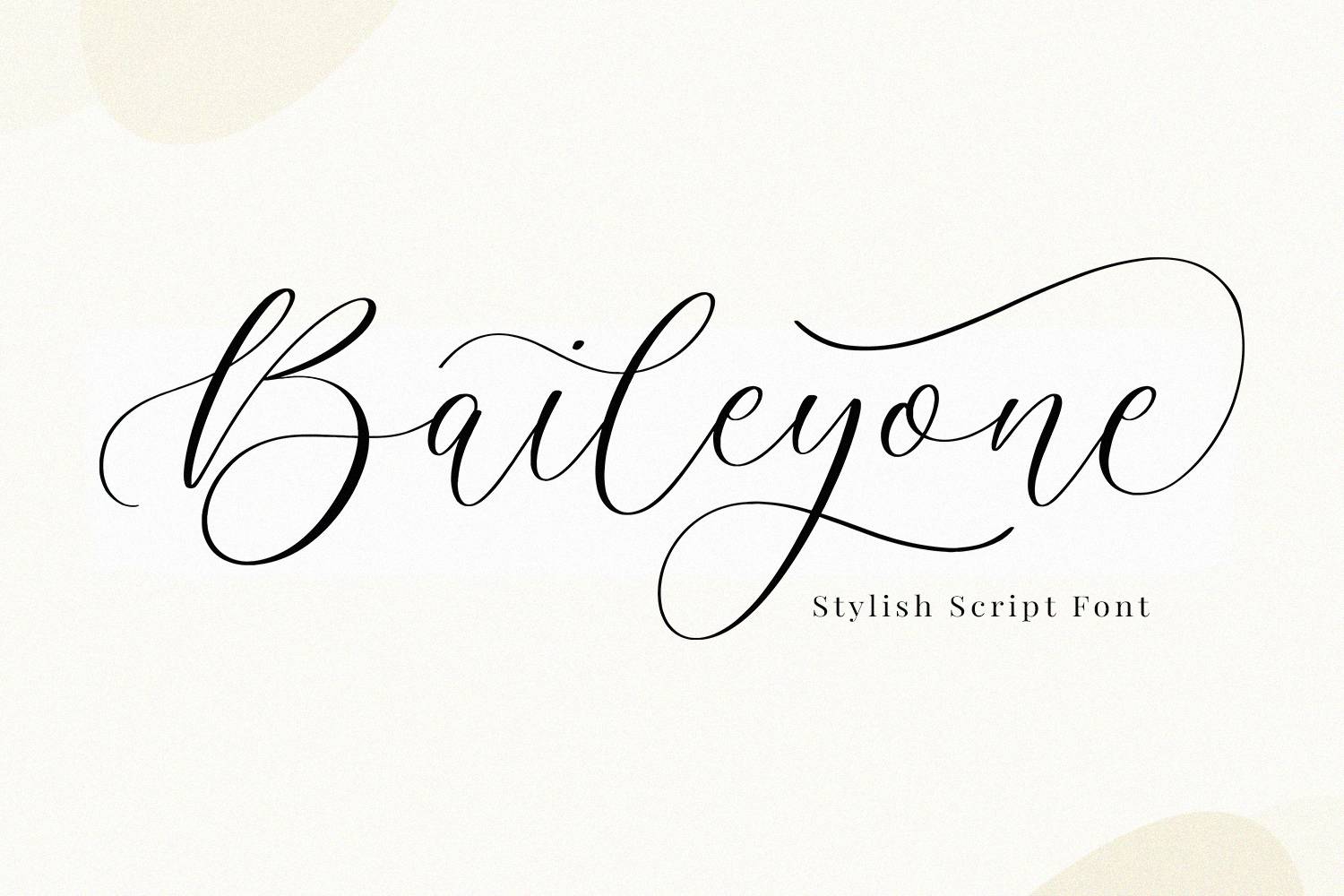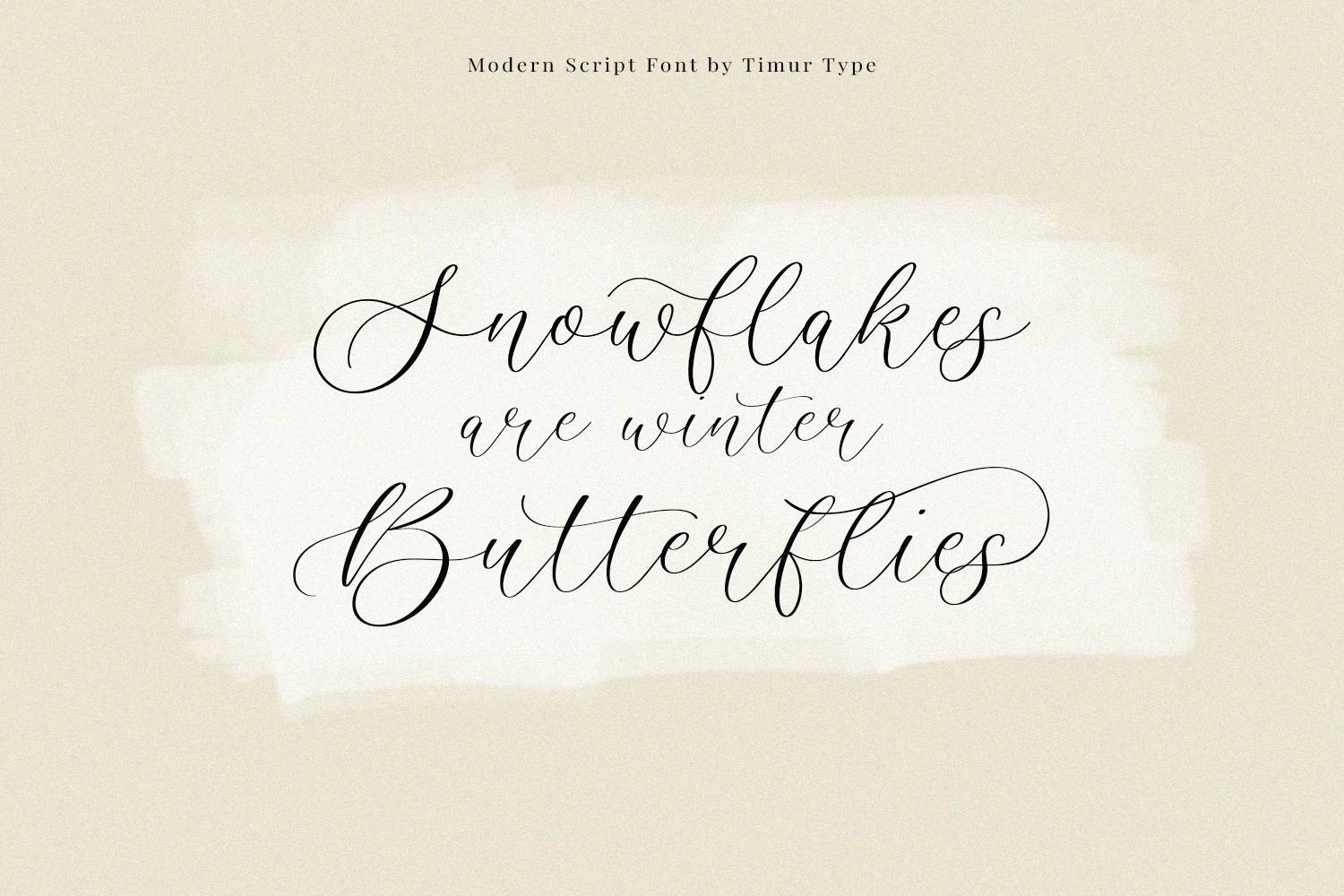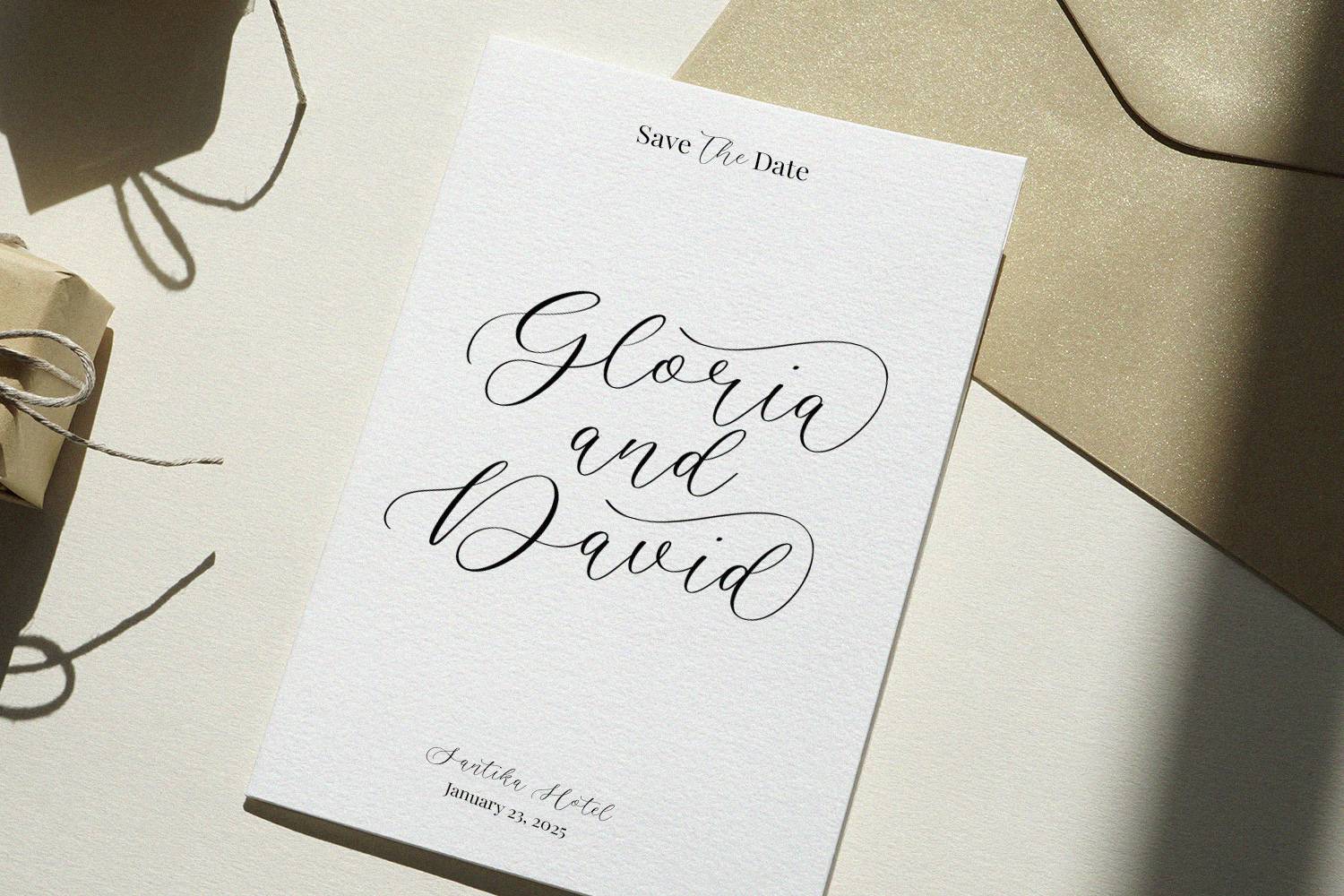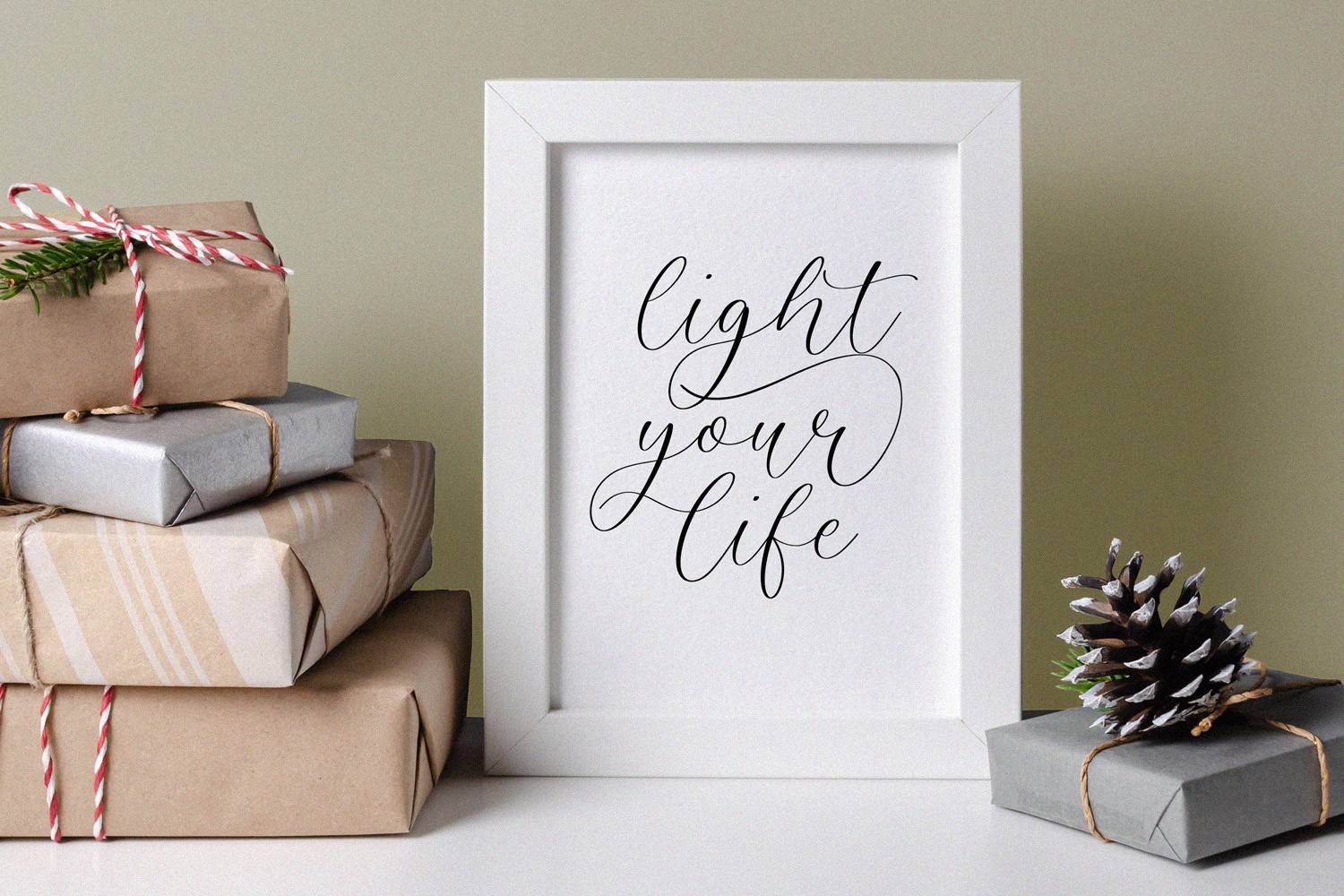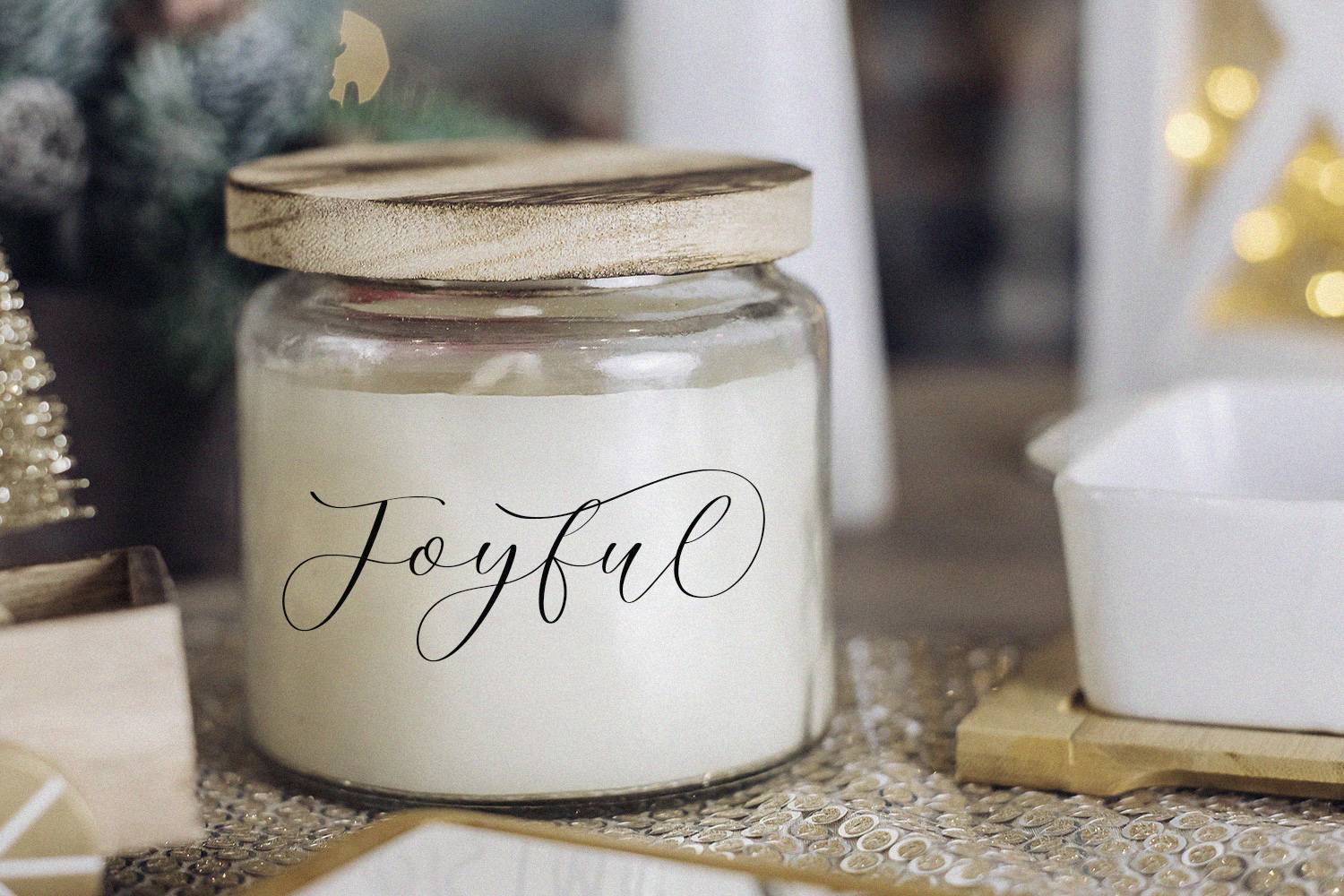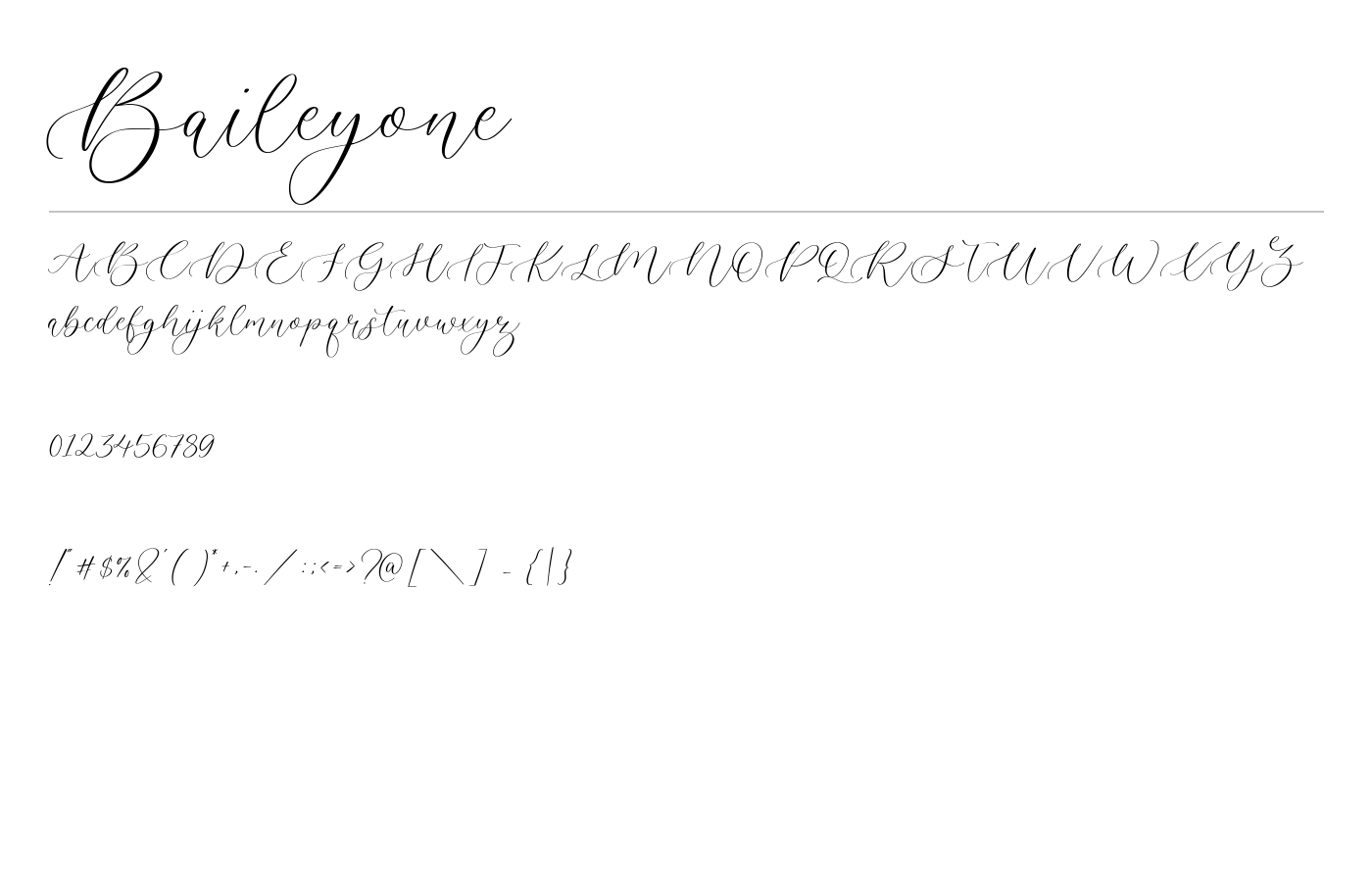
Baileyone is an elegant, delicate script font characterized by its thin, flowing strokes and graceful swashes that create a refined and sophisticated look. Its high-contrast lines and cursive style make it perfect for luxury branding, wedding invitations, and upscale editorial designs where a touch of romance and femininity is desired. This font works beautifully in headlines and decorative text, adding a personal, artistic flair to any project.
Baileyone Font
About Baileyone Font